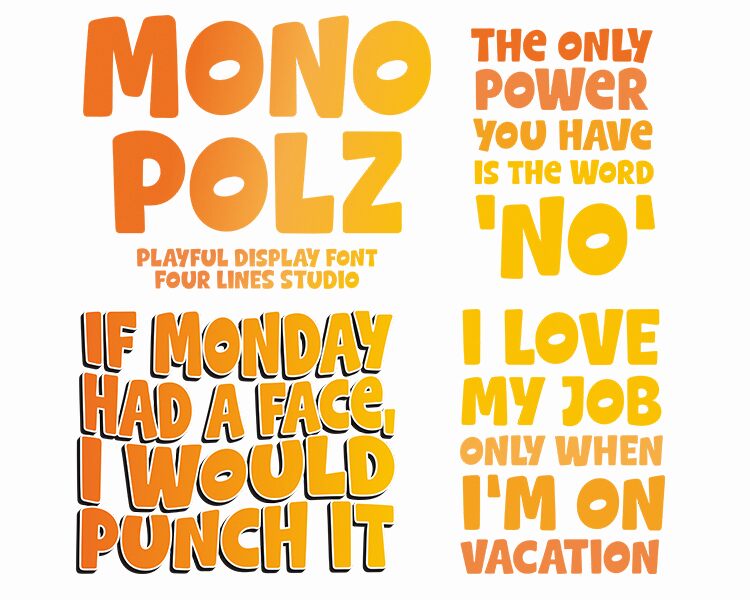
Mono Polz
Mono Polz font by Four Lines combines cartoon style with bold weight, exuding a playful, casual vibe. Rounded edges and quirky design elements make it look suitable for modern designs. Retro influences can also be observed in this display type, which enhances its overall appearance.
This free font is perfect for headings, posters, packaging design, labels, apparel branding or design ideas in the fashion sector. Books for children’s projects can also benefit from using this amazing resource. Explore different possibilities in digital ads and YouTube banners too!